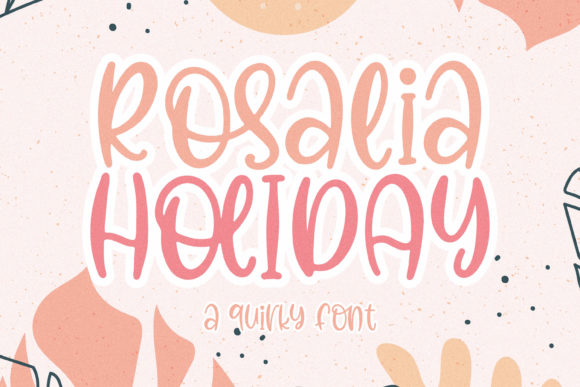
**Introducing Rosalia Holiday: The Font That Will Add a Touch of Magic to Your Designs**
Prepare to be enchanted by the captivating allure of Rosalia Holiday, a premium display font that will elevate your creative projects to extraordinary heights. With its whimsical and charming character, Rosalia Holiday is the perfect choice for those seeking to make a lasting impression.
Immerse yourself in the boundless possibilities that Rosalia Holiday presents. Whether you're crafting eye-catching logos, designing captivating branding materials, or creating stunning packaging that exudes luxury, this font is your gateway to unparalleled design excellence.
Unleash your creativity and watch as your designs transform into masterpieces. Rosalia Holiday's versatility knows no bounds, making it the ideal companion for a vast array of projects, from homeware designs and product packaging to mugs, quotes, and posters. Its innate elegance adds a touch of sophistication to any creation, ensuring that your designs stand out from the crowd.
Envision your designs taking center stage on shopping bags, t-shirts, and book covers, adorned with the enchanting letters of Rosalia Holiday. Its intricate details and flowing curves will captivate your audience, leaving an unforgettable mark on their minds.
Step into the world of Rosalia Holiday and discover a font that embodies the essence of luxury and sophistication. Its premium signature taste makes it the perfect choice for invitation cards, greeting cards, and all your other special projects that demand a touch of exclusivity.
With Rosalia Holiday at your fingertips, the possibilities are endless. Embrace the power of typography and watch as your designs blossom into works of art. Experience the magic of Rosalia Holiday today and let your creativity soar to new heights.